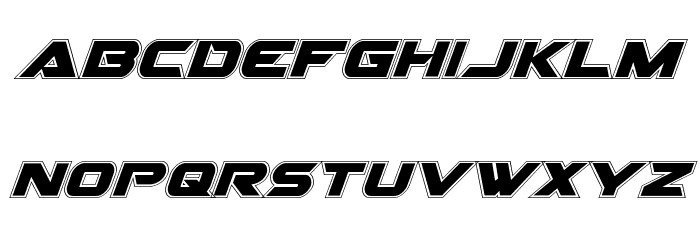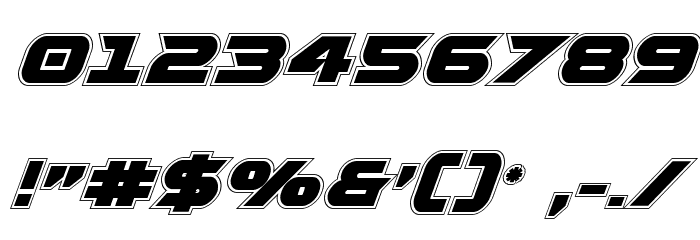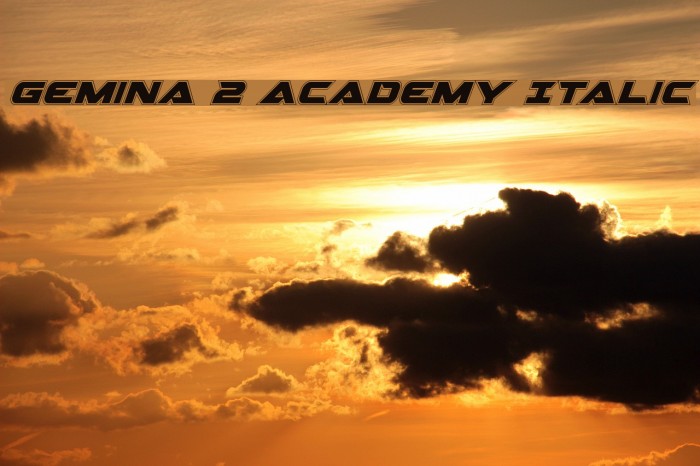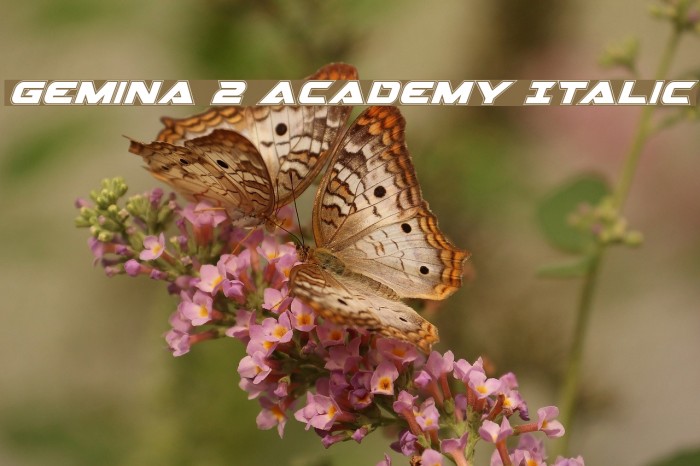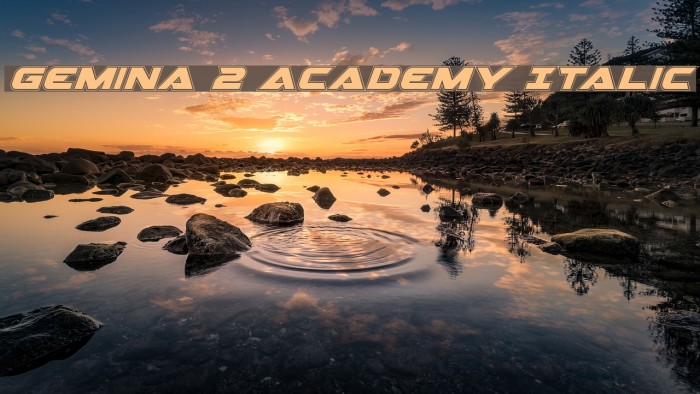
Gemina 2 Academy Italic Font
This font features a bold, italicized style with a futuristic and dynamic appearance. The characters are outlined with a double-layer effect, giving them a three-dimensional look. The uppercase and lowercase letters maintain a consistent slant, enhancing the italicized effect. The numbers and special characters follow the same design principles, ensuring uniformity across all glyphs. The font's boldness and unique style make it stand out, suitable for projects that require a modern and edgy aesthetic.
A bold, italicized font with a futuristic, three-dimensional style.
- Proposed Projects: Ideal for sci-fi themed designs, video game titles, tech branding, and dynamic posters.